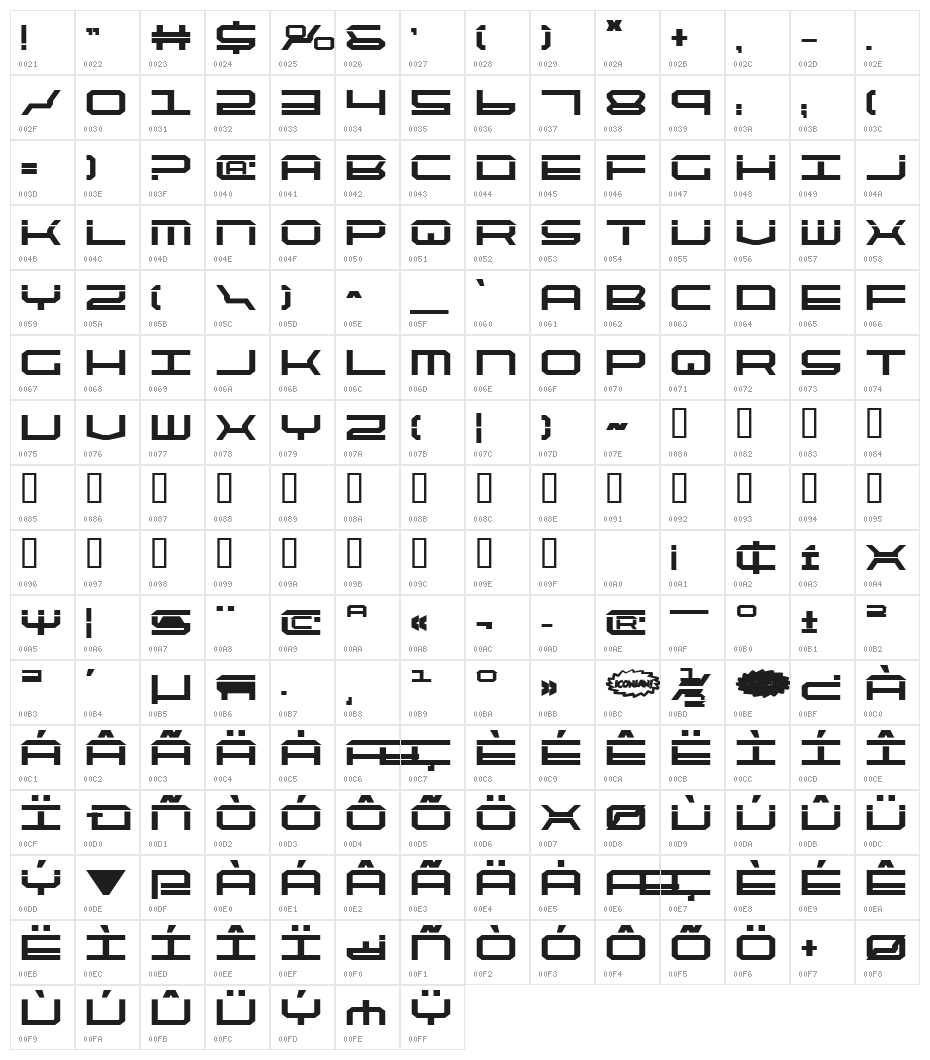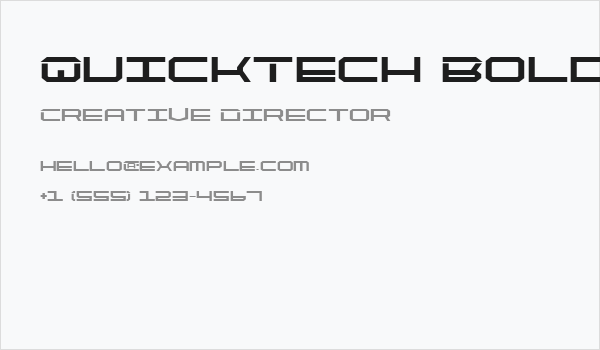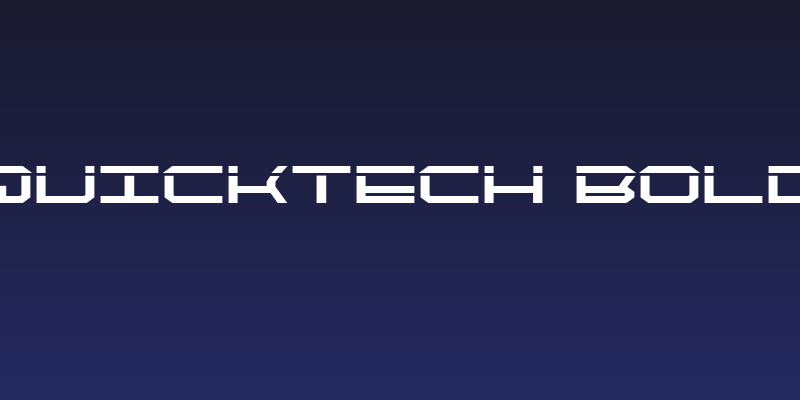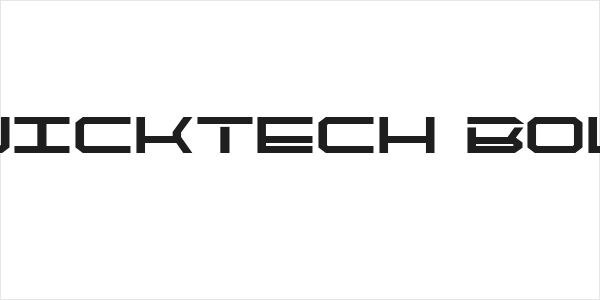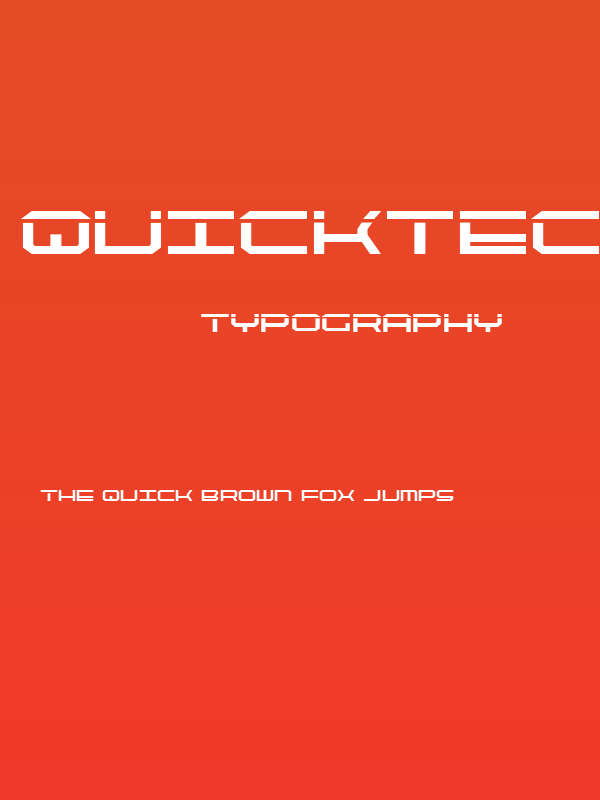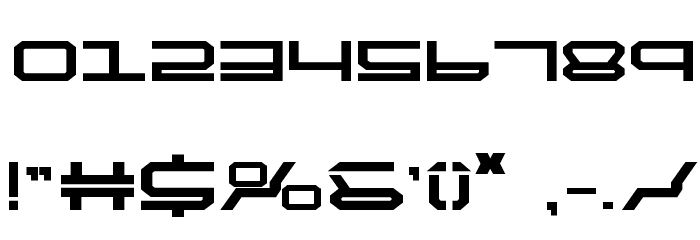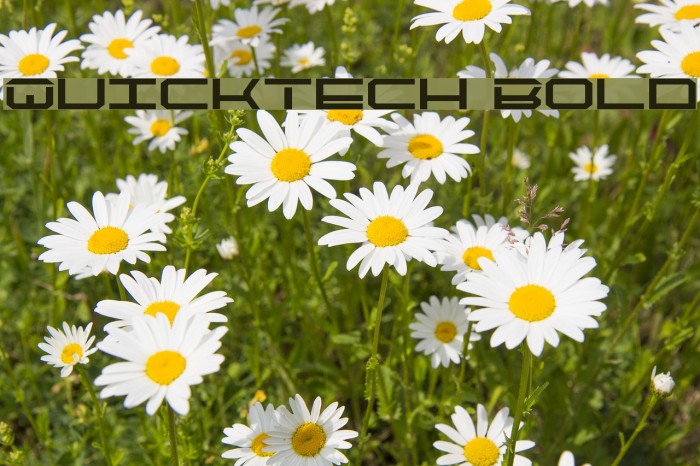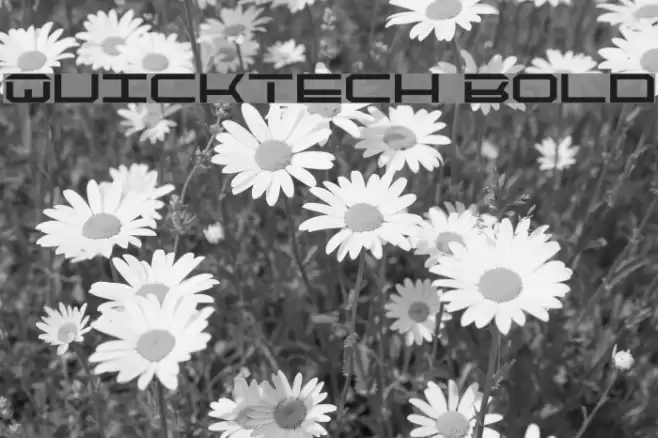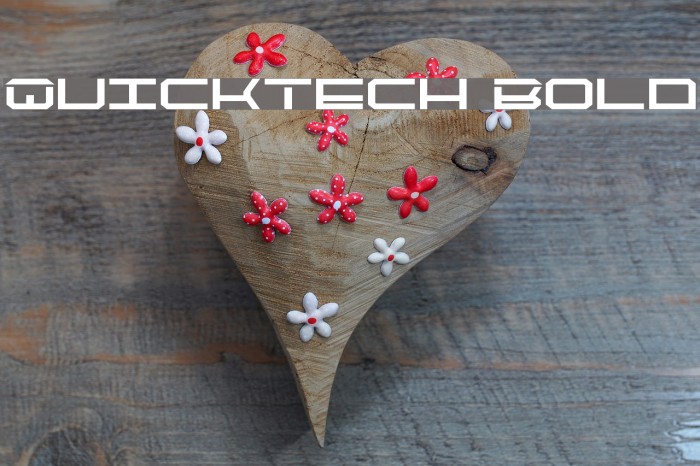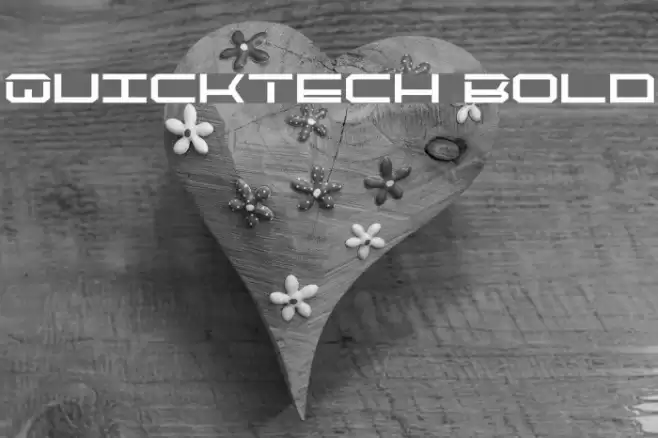
QuickTech Bold Font
QuickTech Bold Description
This font features a futuristic and geometric design, characterized by sharp angles and a bold presence. The uppercase letters are distinct with a blocky structure, giving them a technological and modern feel. The lowercase letters maintain a consistent style, ensuring readability while preserving the unique aesthetic. Numbers and special characters follow the same design principles, making them suitable for digital and tech-related applications. The overall appearance is sleek and contemporary, ideal for projects that require a cutting-edge look.
| Proposed Projects | Ideal for technology branding, video game titles, sci-fi movie posters, and digital interfaces. |